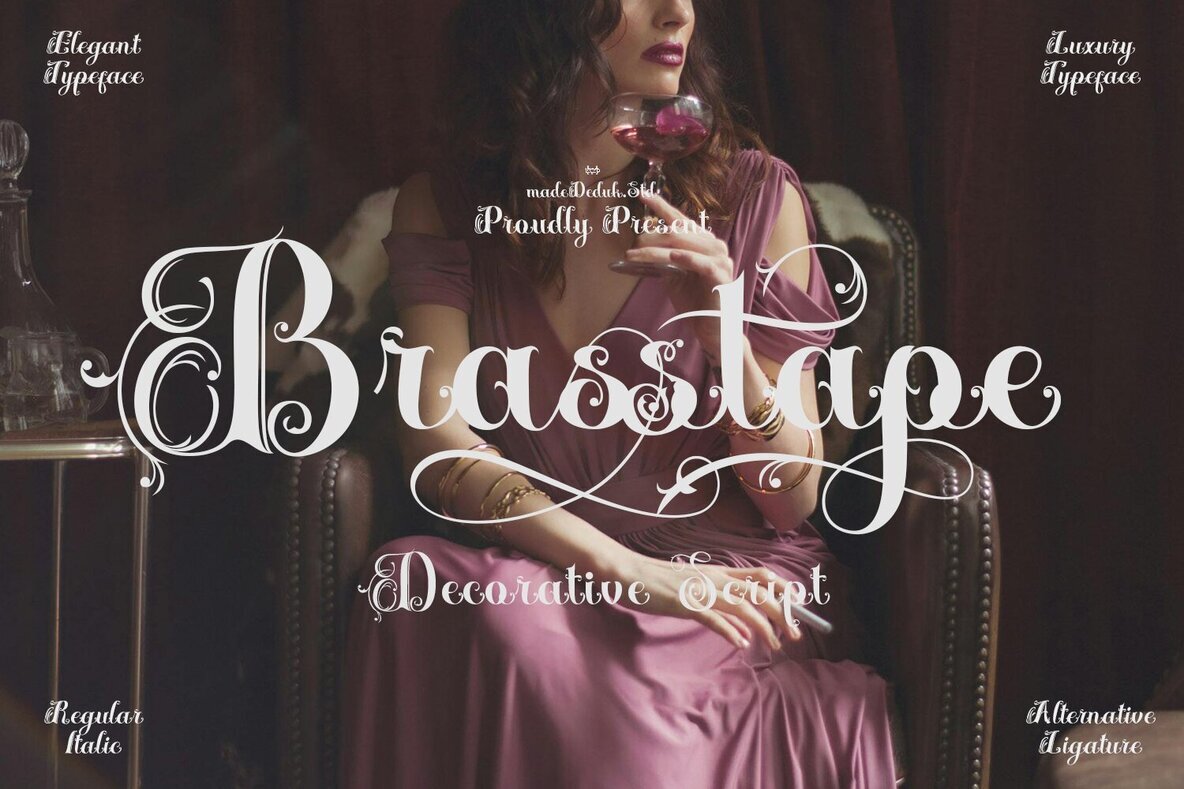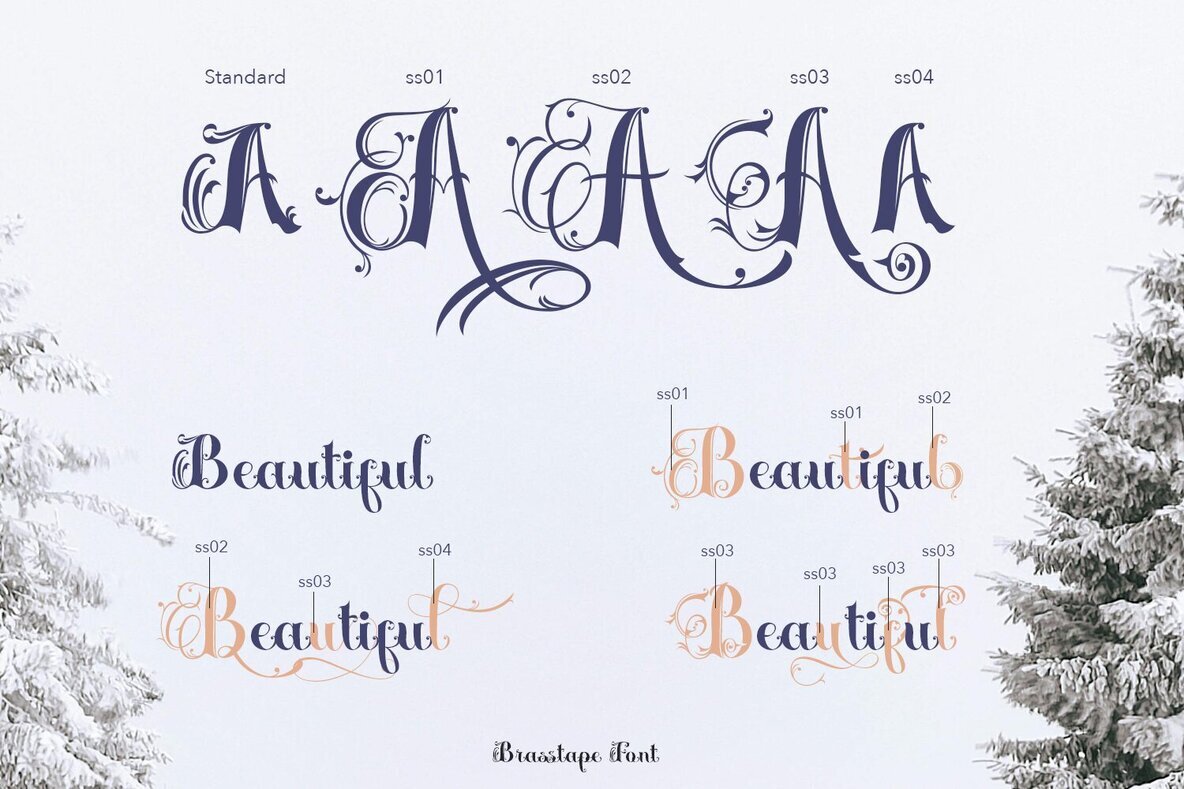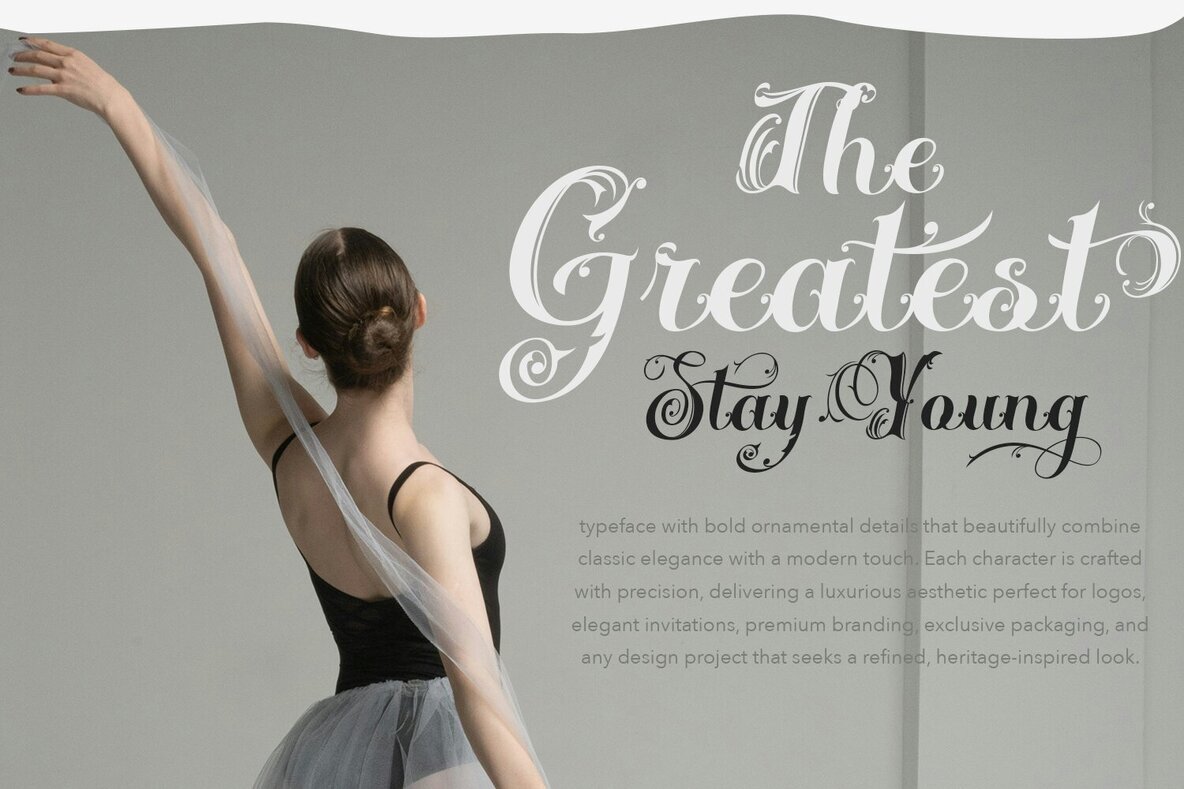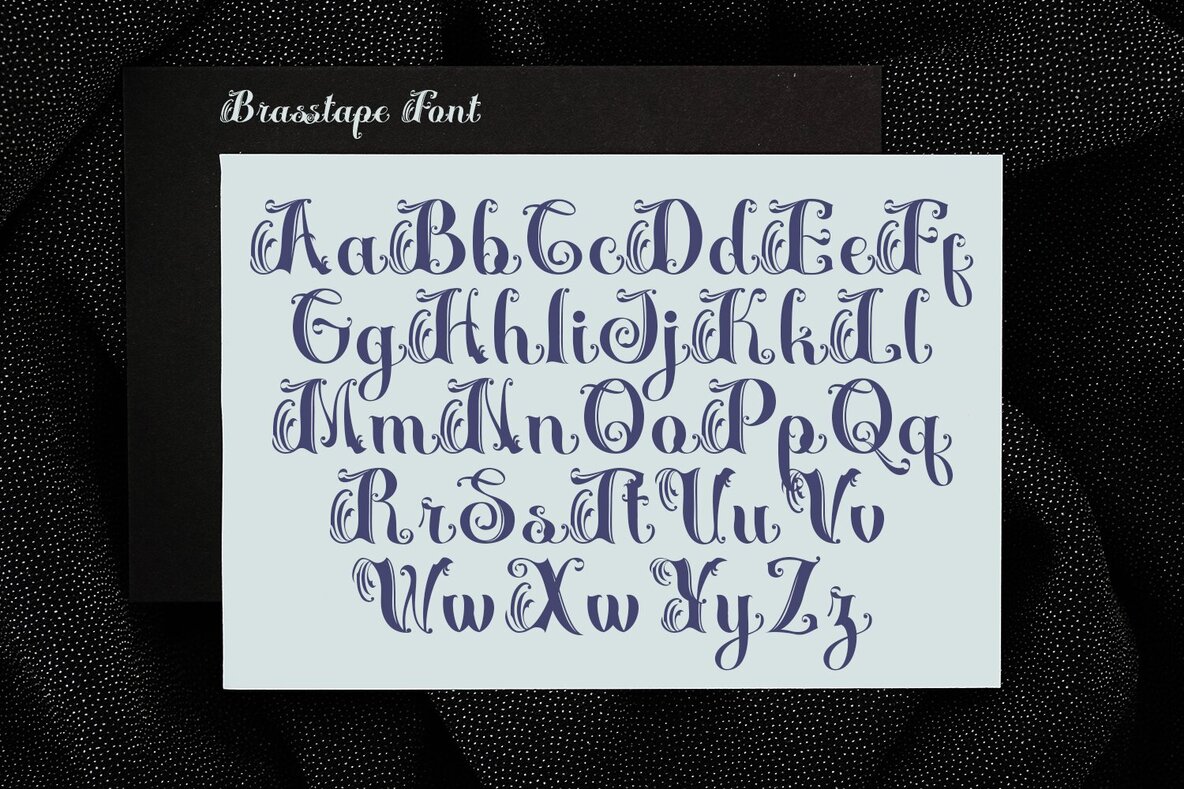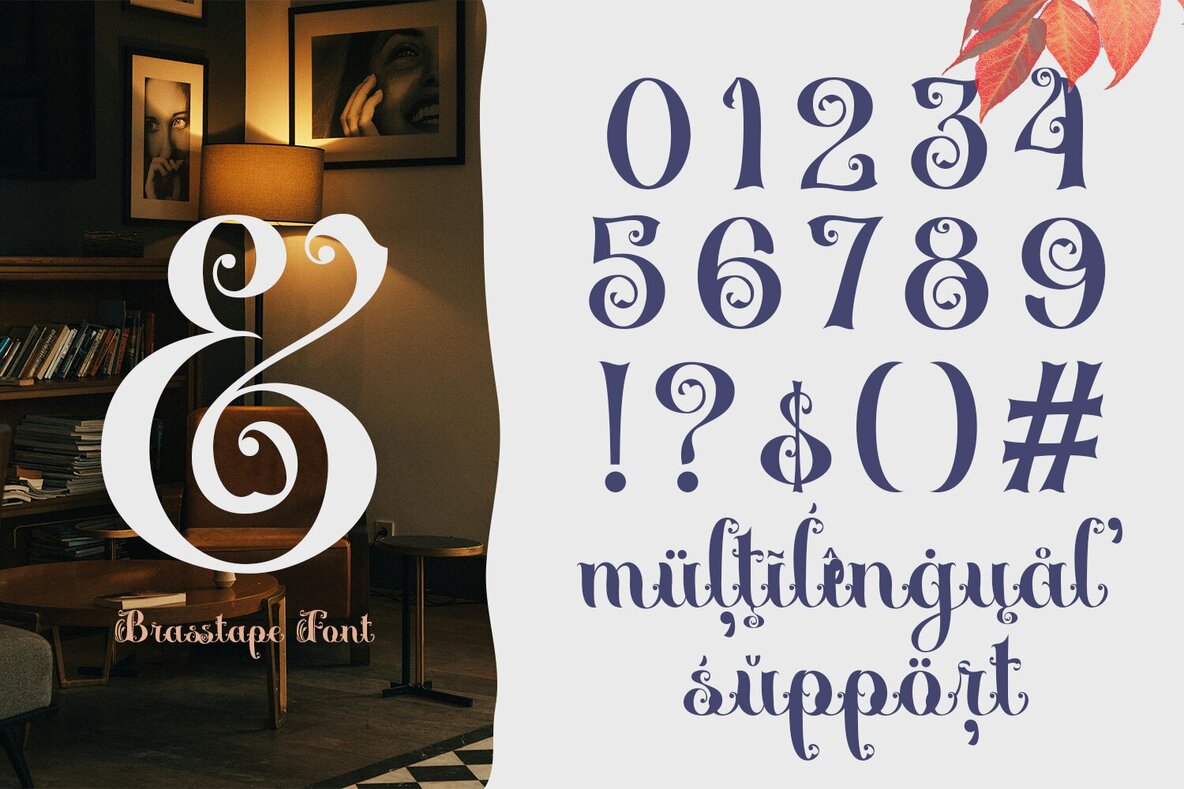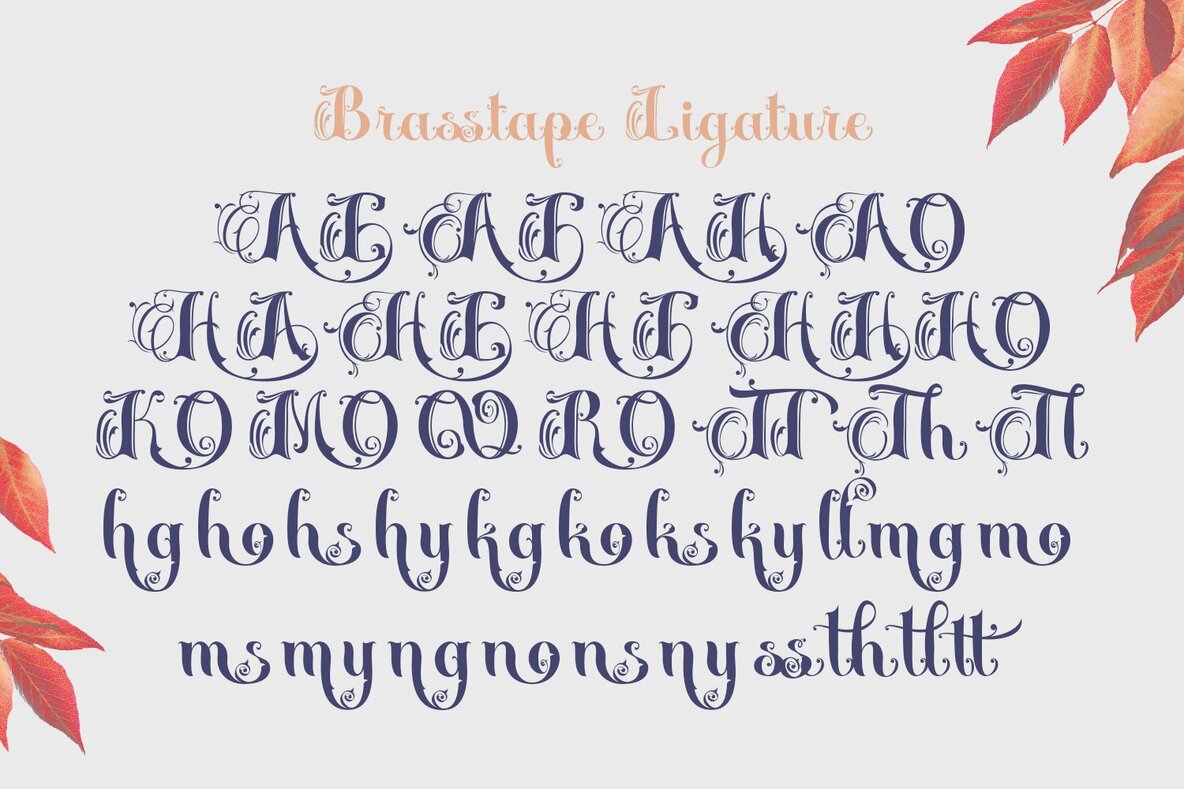
Brasstape Font
Brasstape stands out with its bold ornamental details and refined script styles, blending classic elegance with a distinctly modern appeal. Each character is shaped with precise craftsmanship, making this font an exceptional choice for projects that require a luxurious and heritage-inspired aesthetic. This decorative script is ideal for a variety of uses, from logos and premium branding to elegant invitations and exclusive packaging. The strong, ornate features lend distinction to any design, delivering both sophistication and style.Brasstape Decorative Script Font